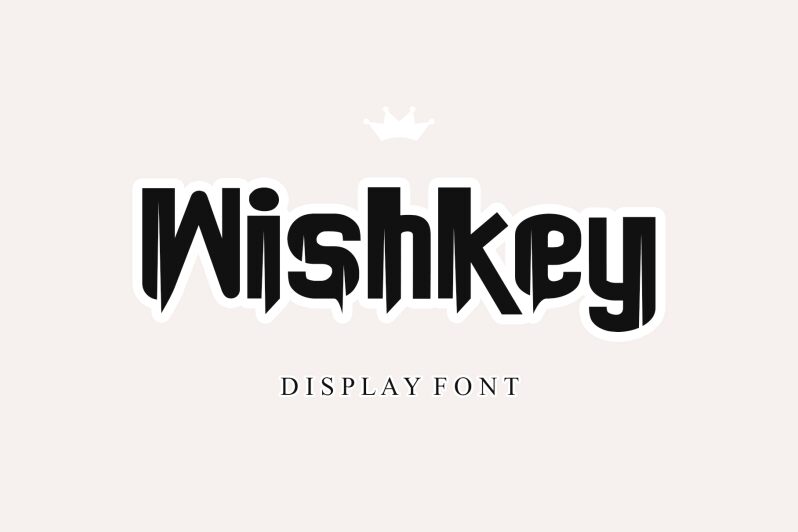
Wishkey font by Letterafa Studio is a display font with an angular, geometric, and modern style. Its bold presence is impactful and futuristic, capturing an edgy design that brings a strong visual element.
A free techno display font, Wishkey finds its place in multiple digital and printed projects. Initial uses involve headings, banners, invitations cards, t-shirts designs, posters, signage systems as well as advertising materials such as flyers or social media promotions.